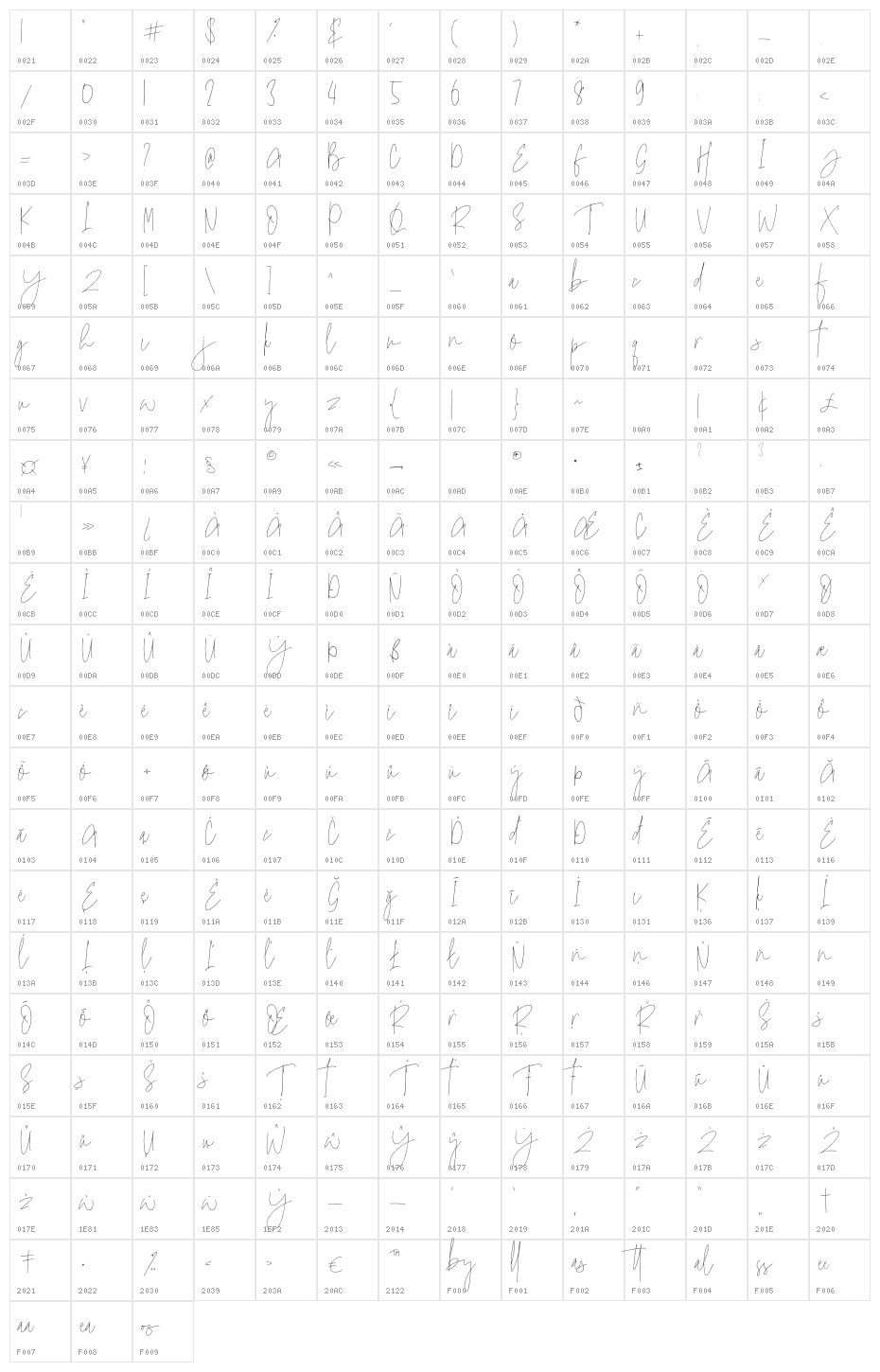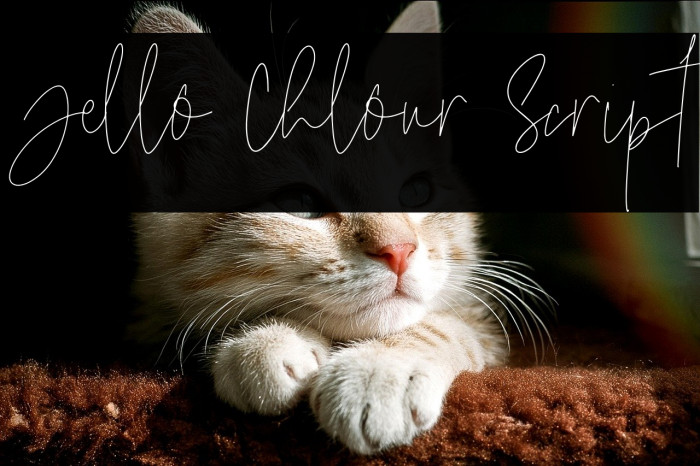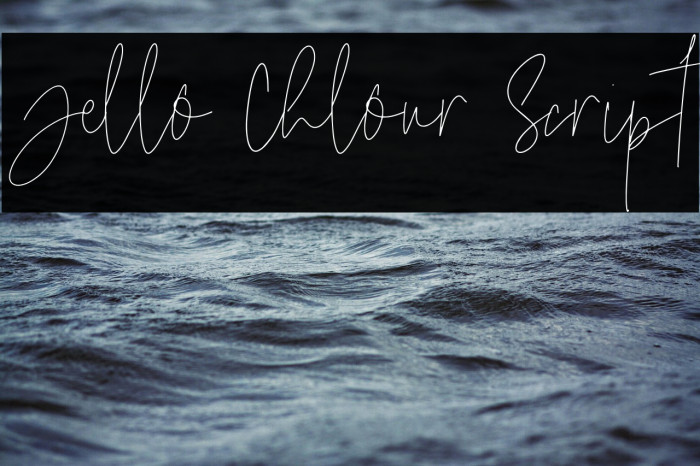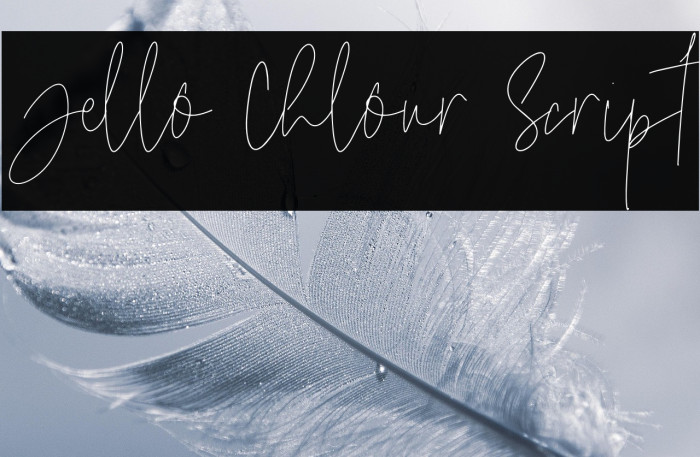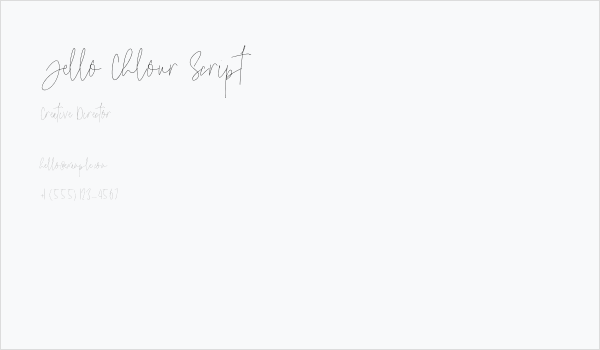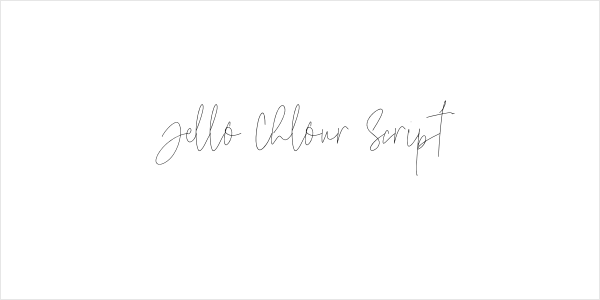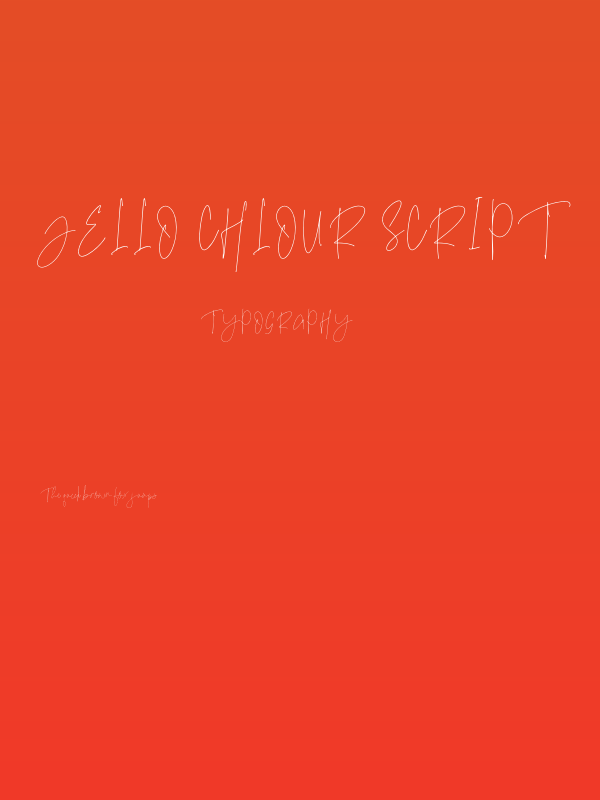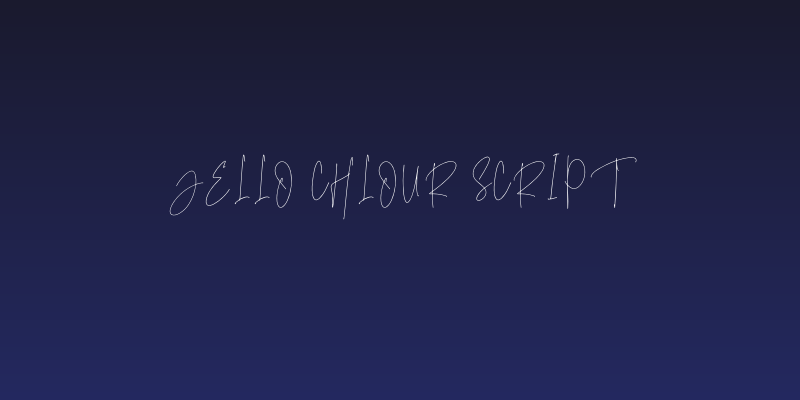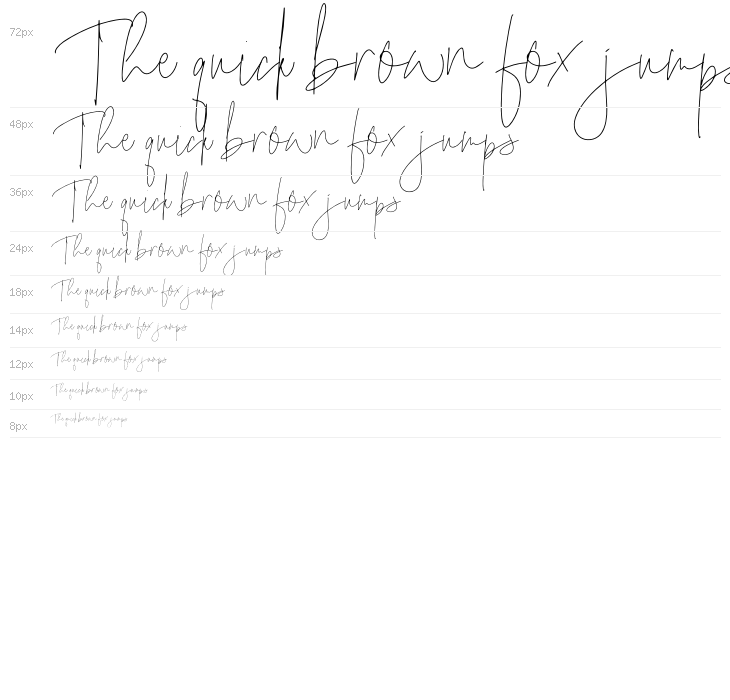
Jello Chlour Script Font
Jello Chlour Script Description
This font features a playful and casual handwritten style, characterized by its thin, flowing lines and slightly irregular letterforms. The uppercase letters are tall and narrow, while the lowercase letters have a more relaxed and freeform appearance. The numbers and special characters maintain the same whimsical quality, adding to the font's overall charm. The strokes are consistent in their delicate thickness, giving the font a light and airy feel. This script style is perfect for projects that require a personal touch or an informal aesthetic.
Overall StyleCasual, Playful
Use CaseLogos, Invitations, Personal Branding
Proposed ProjectsIdeal for greeting cards, invitations, personal branding, and creative projects that benefit from a handwritten touch.